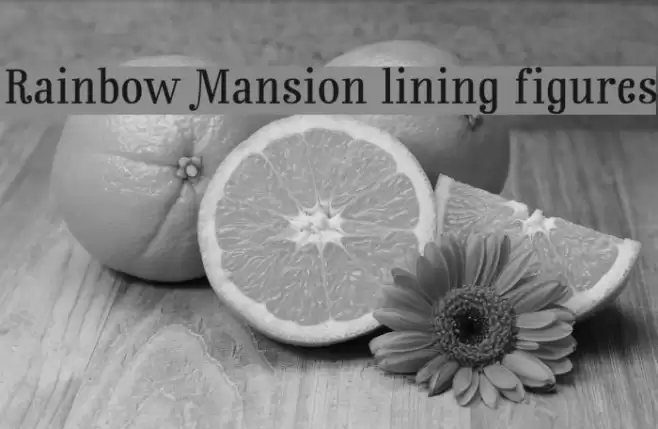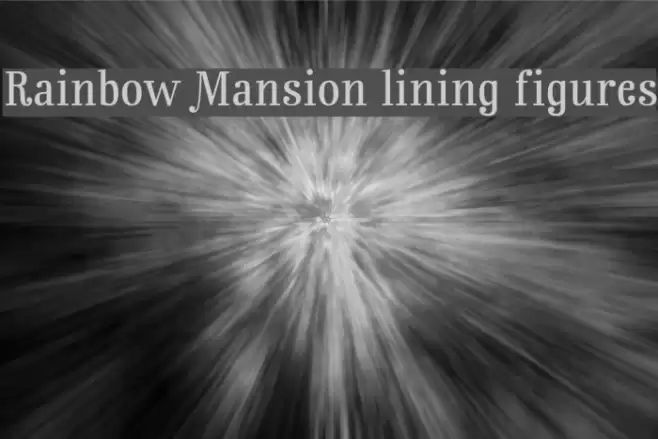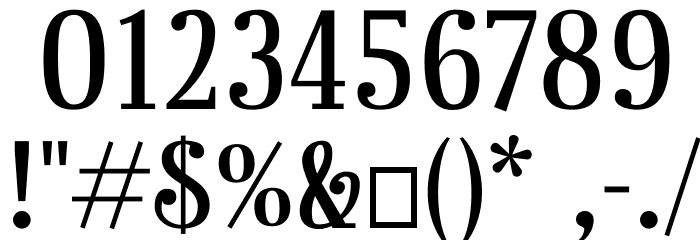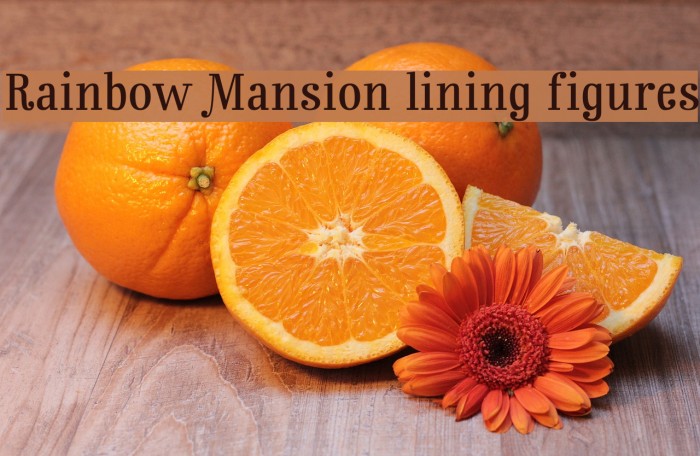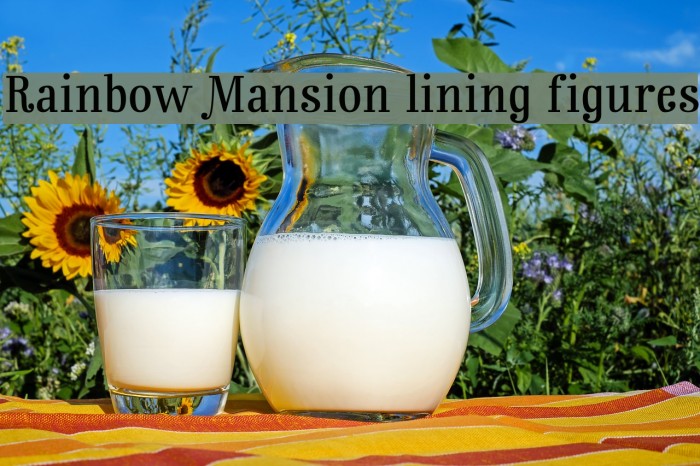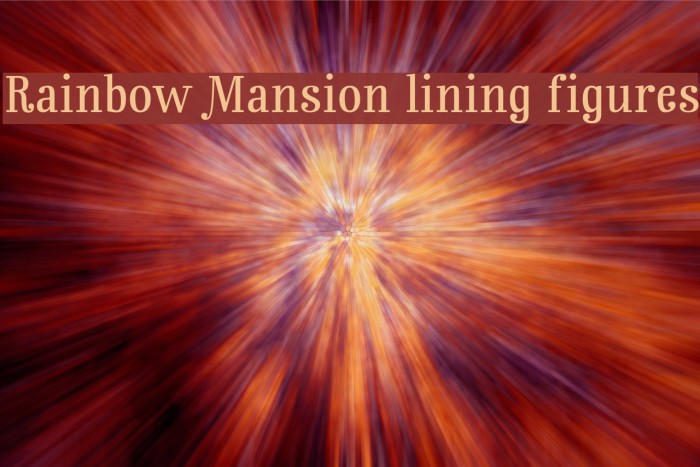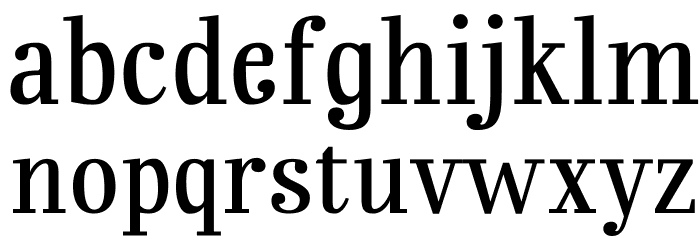
Rainbow Mansion lining figures Font
Rainbow Mansion lining figures Description
This font features a classic serif style with a refined and elegant appearance. The uppercase letters exhibit a strong presence with slightly elongated serifs, giving them a traditional yet sophisticated look. The lowercase letters maintain a consistent style, with smooth curves and balanced proportions. The numerals are clear and distinct, making them suitable for both display and text purposes. Special characters are well-integrated, maintaining the overall aesthetic of the font. The design is versatile, making it suitable for a variety of applications where a touch of elegance is desired.
A classic serif font with elegant, elongated serifs and balanced proportions from Uncategorized fonts.
- Proposed Projects: Ideal for book covers, editorial design, formal invitations, and branding projects that require a touch of sophistication.
- Overall Style: Classic